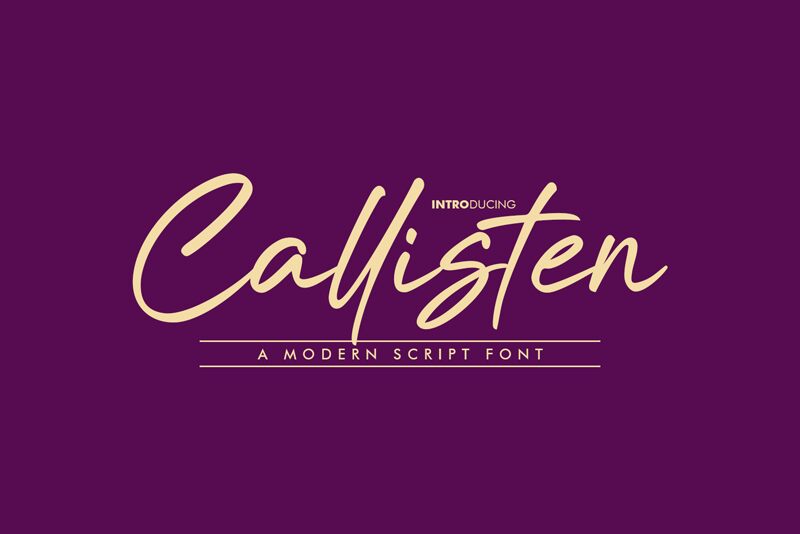
Callisten
The Callisten font exudes a captivating and organic flow, capturing the essence of handwritten elegance. Designed by the renowned Khurasan, this typeface seamlessly blends fluid strokes and subtle variations, creating a genuine and personalized aesthetic. The Callisten font's distinctive character imbues a sense of warmth and authenticity, making it a standout choice for projects seeking a handcrafted, artisanal feel.
Callisten's versatility shines through, making it a versatile selection for a wide range of design applications. From elegant wedding invitations and stationery to personalized branding and packaging, this font effortlessly lends itself to projects that aim to convey a sense of handcrafted charm and personal touch. Callisten's adaptability ensures a captivating visual experience, regardless of the design context.